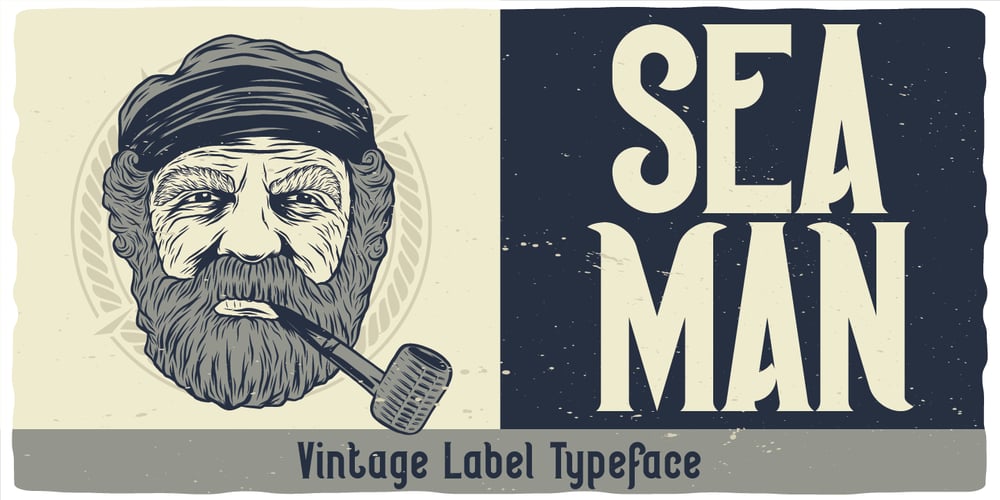
Seaman Font Family was designed by Oleg Voznyy and published by Vozzy. Seaman contains 6 styles and family package options. Introducing a vintage label font named Seaman. All available characters you can see at the screenshots. This font has two variations, Clean and Grunge, and for each included three styles – Clean, Shadow and Shadow Wave. This font will look good on any retro design like a poster, T-shirt, label, logo, etc.